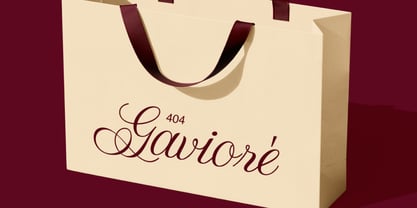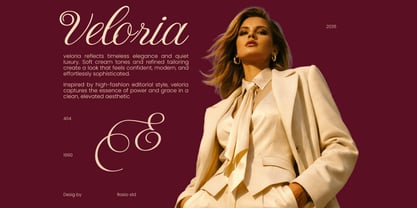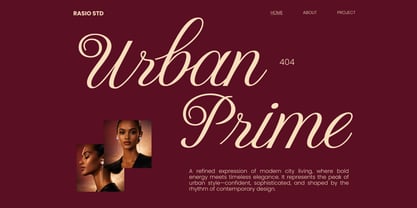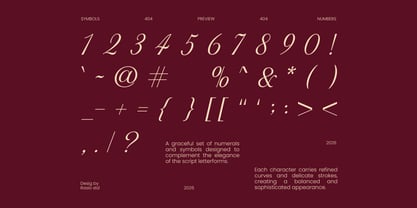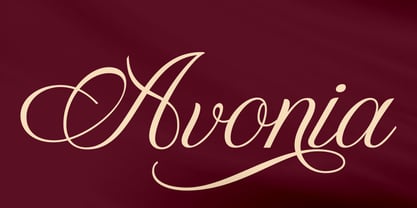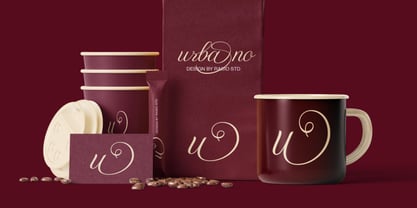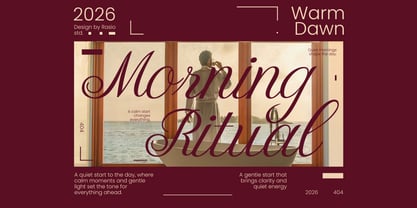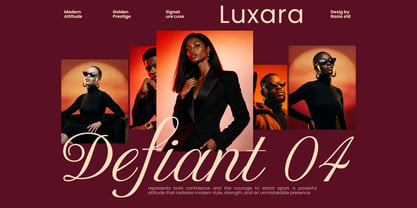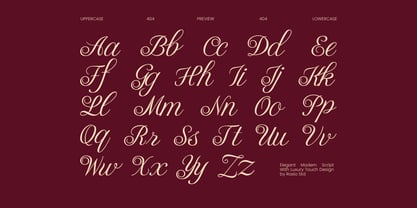
Avonia
by Rasio Studio
The Avonia Font Family was designed by Fajar Indra and published by Rasio Studio. Avonia contains 1 styles. More about this family
Avonia is a refined modern luxury script font featuring elegant flowing strokes and graceful letterforms with high-contrast curves. The design highlights sophisticated swashes, smooth connections, and stylish alternates that enhance visual elegance across compositions. This font includes uppercase, lowercase, numerals, punctuation. Avonia is highly relevant for premium and elegant design projects that require a refined visual tone. It works perfectly for luxury branding, wedding invitations, fashion editorials, beauty product packaging, and social media content that emphasizes sophistication. The flowing script style enhances logos, headlines, and decorative typography, making it ideal for both personal and commercial projects seeking a timeless and graceful impression.
Designers: Fajar Indra
Current Foundry: Rasio Studio